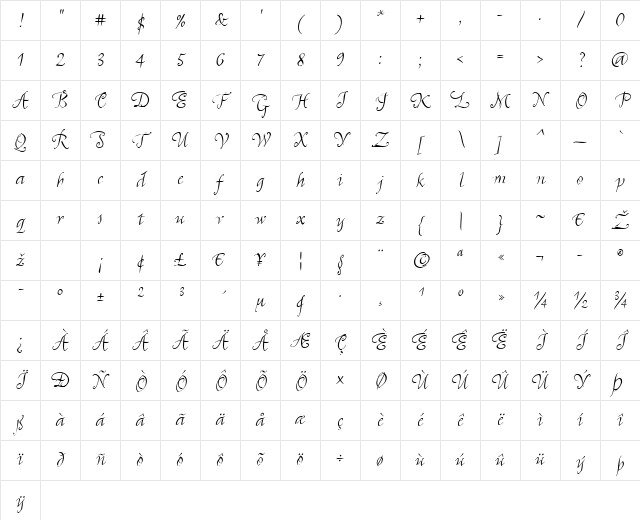
RastkoITC Regular Free Font
RastkoITC Regular
Design Context for RastkoITC
RastkoITC is a composed and adaptable typeface that performs quietly and consistently across a wide range of design contexts.